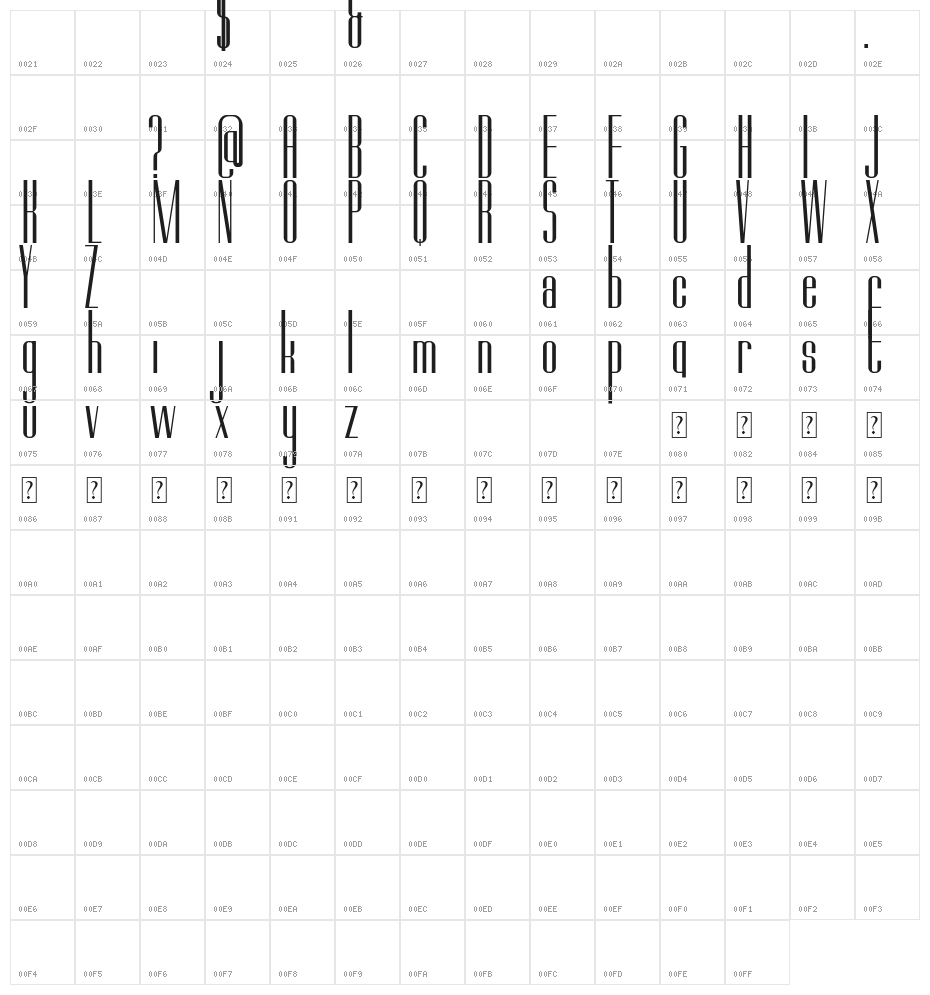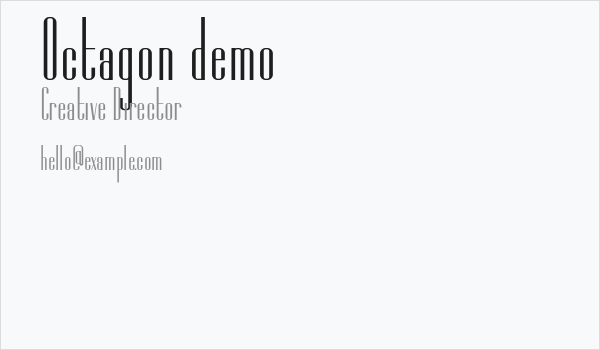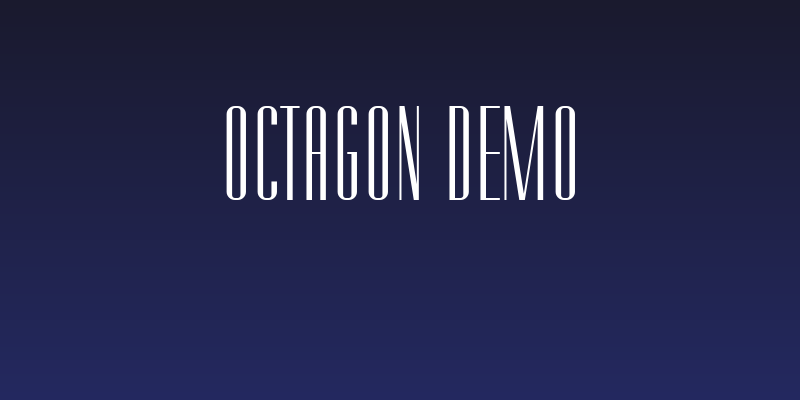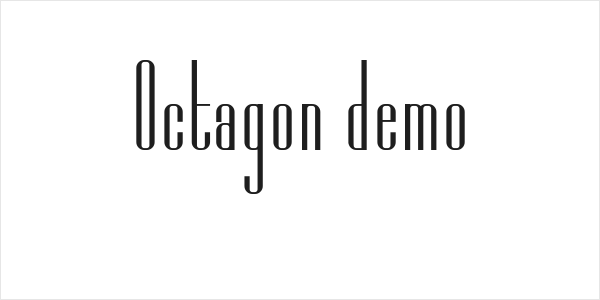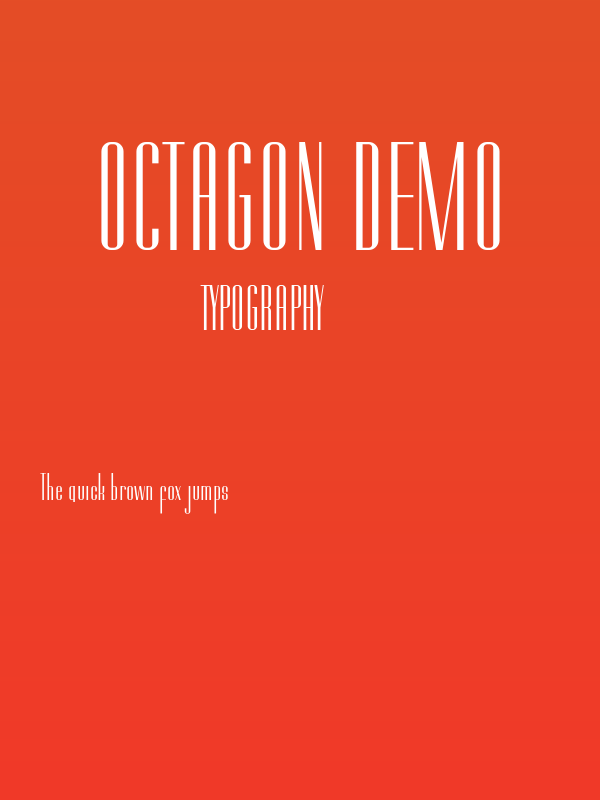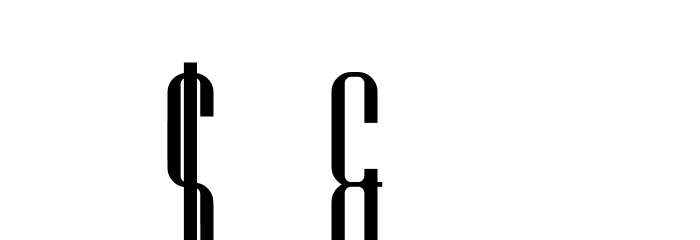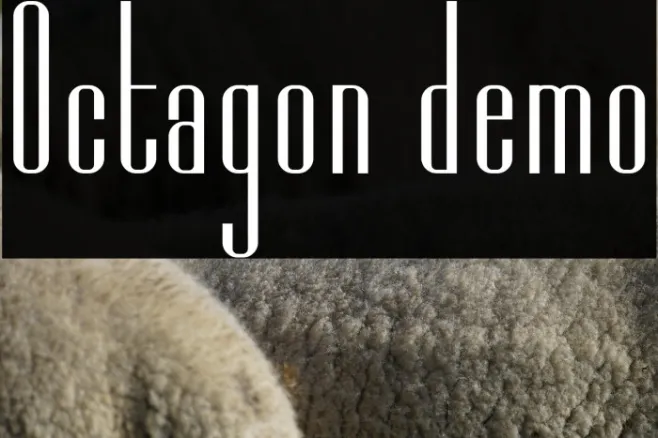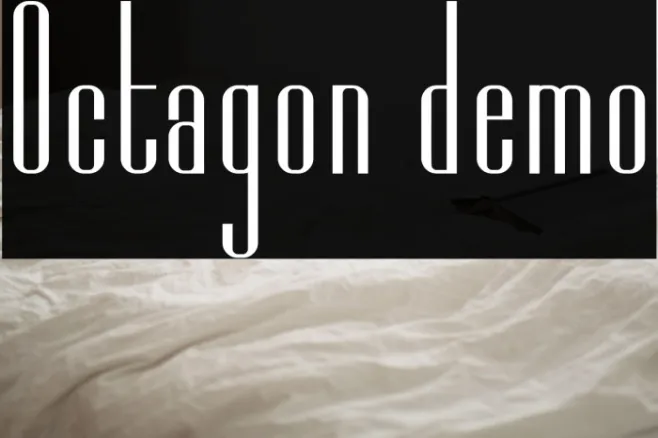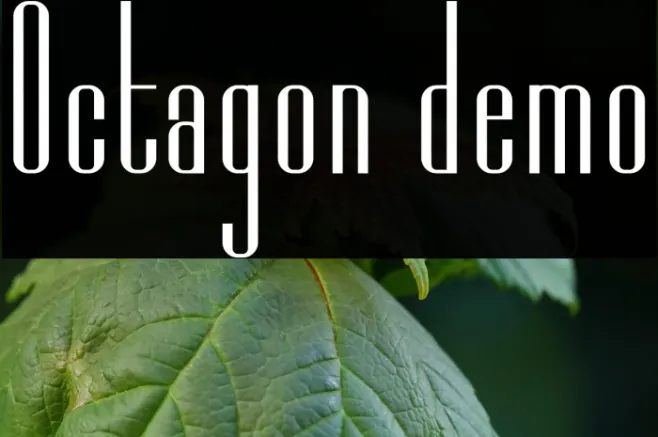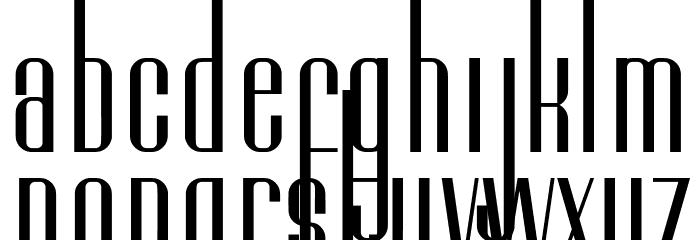
Octagon demo Font
Octagon demo Description
This font features a highly condensed and elongated design, characterized by its tall and narrow letterforms. The strokes are consistent in thickness, providing a uniform appearance across all characters. The uppercase letters are particularly striking, with their vertical emphasis and minimal spacing, creating a bold and impactful look. The lowercase letters maintain the same condensed style, ensuring readability while preserving the overall aesthetic. The numbers and special characters follow the same design principles, integrating seamlessly with the alphabet. This font's modern and sleek style makes it suitable for contemporary design projects.
| Proposed Projects | Ideal for modern branding, editorial design, posters, and any project requiring a bold, impactful typeface. |